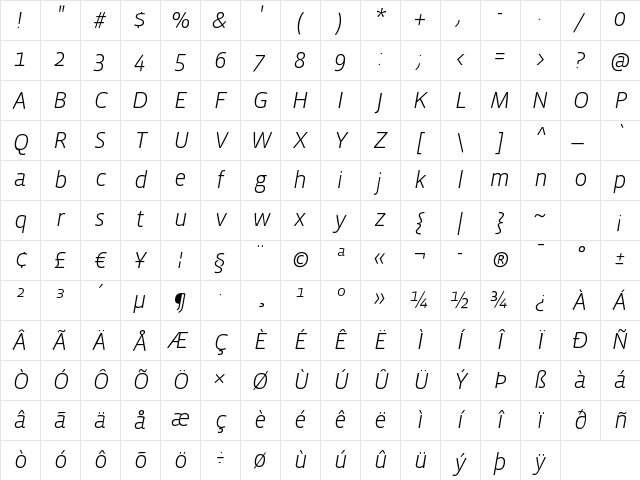
VistaSansLightItalic Regular Free Font
VistaSansLightItalic Regular
Foundry: Xavier Dupre
Designer: Xavier Dupre
Design Context for VistaSansLightItalic
VistaSansLightItalic is a composed and adaptable typeface that performs quietly and consistently across a wide range of design contexts. The slanted form adds forward momentum and visual energy. Its slender proportions lend an understated elegance to any composition.
Who designed the VistaSansLightItalic Regular font?